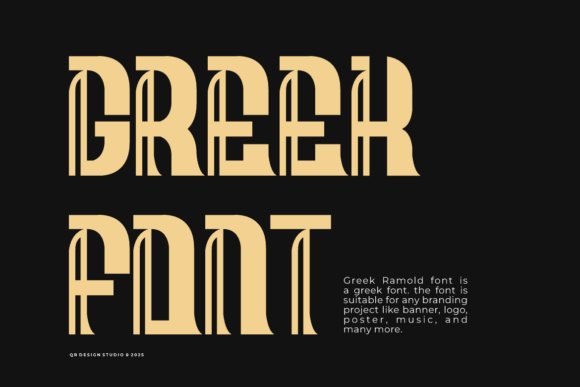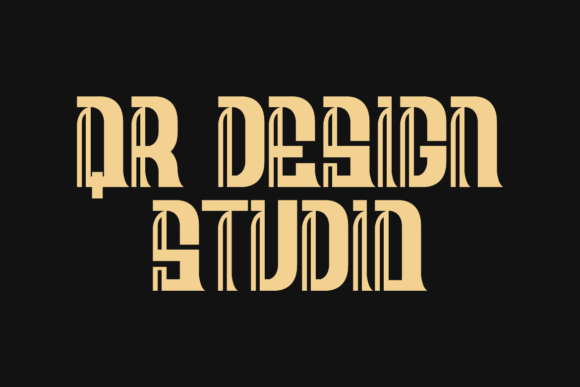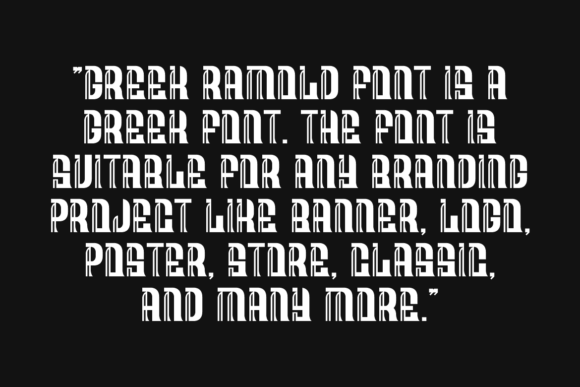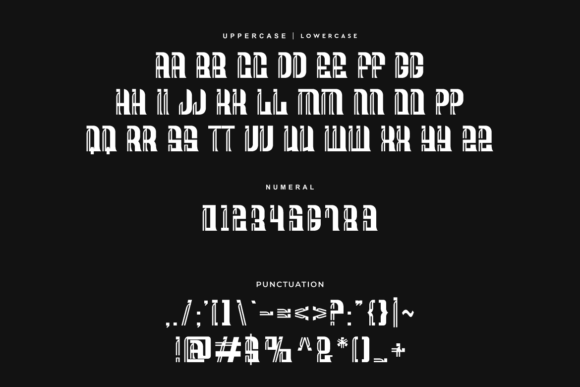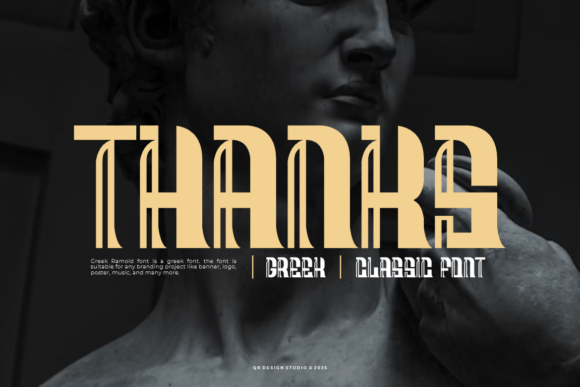
Introduction to Greek Ramold Font
Remember the moment when you stumbled upon the perfect design element for your creative project? The one that elevates your entire visual identity and leaves a lasting impression? For designers seeking a high-quality, attention-grabbing typeface, the Greek Ramold Font is a game-changer.
With its unique blend of ancient Greek influences and modern display aesthetics, Greek Ramold Font is the ultimate design resource for those looking to add a touch of regal elegance to their work. Its strong verticals and stylized letterforms make it perfect for editorial headers, logos, museum promotions, or historical branding. Whether you’re working on a project that requires a sophisticated and refined look or simply want to add some visual interest to your design, Greek Ramold Font is an excellent choice.
Key Features of Greek Ramold Font
- High-quality design resource ideal for creative projects, offering a unique and elegant look.
- Designed with attention to detail, featuring intricate Greek-inspired lettering and ornaments.
- Perfect for use in branding, packaging, and editorial design projects where a touch of sophistication is required.
- Includes a comprehensive character set, covering Latin and Greek alphabets, as well as various punctuation marks and symbols.
Honest Review: Greek Ramold Font
I recently came across the Greek Ramold Font and was impressed by its unique design. The font is perfect for a creative project that requires a touch of elegance and sophistication. Its high quality and versatility make it a valuable design resource for any project.
What works well: ✨ The font’s transparent background makes it easy to overlay on any image or design. The Greek Ramold Font also has a wide range of characters, making it suitable for various languages. The font is also free to download, which is a huge plus for designers on a budget.
- Wide range of characters
However, I did notice a few limitations: ⚠️ The font may not be suitable for very small text sizes, and the character set is limited to a specific style. But overall, these limitations are minor and don’t detract from the font’s overall value.
Overall, I’m impressed with the Greek Ramold Font. It’s a great addition to any designer’s toolkit, and I would definitely recommend it for creative projects that require a unique and elegant touch.
The Greek Ramold Font is commonly used in creative projects that require a unique and elegant touch. It can be used to create invitations, posters, and other visual materials that require a high-quality design resource.